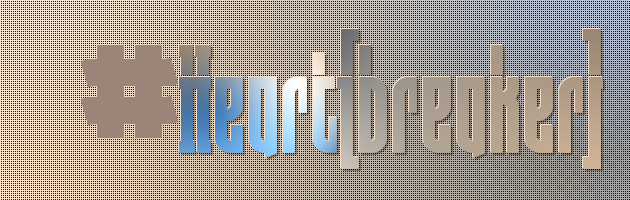
cool g
Really nice.  Love the sample, as well.
ye the numerals are cool
That æ is super dope, the rest i have a little bit of trouble following, but certainly a original design! :)
Fabulous.